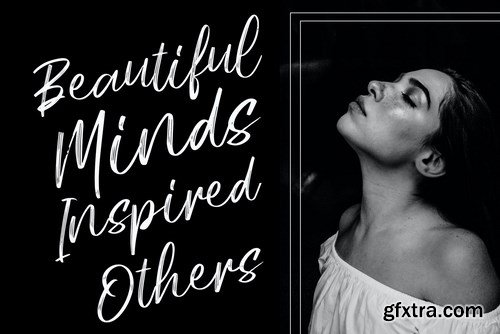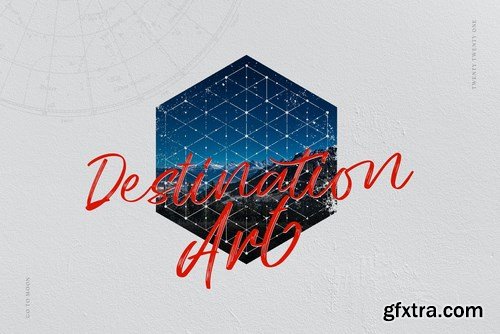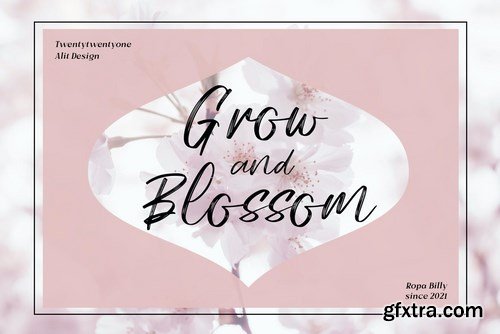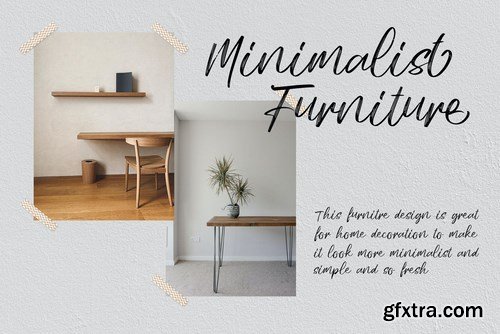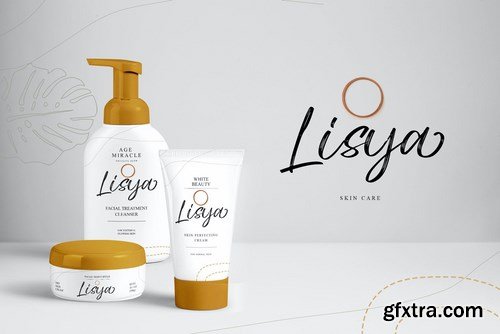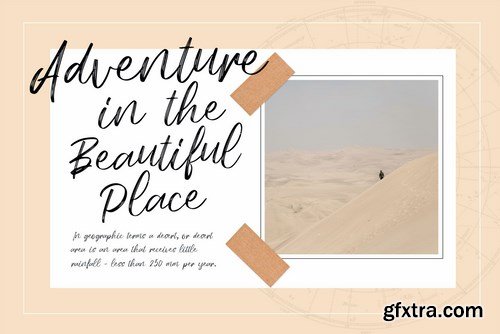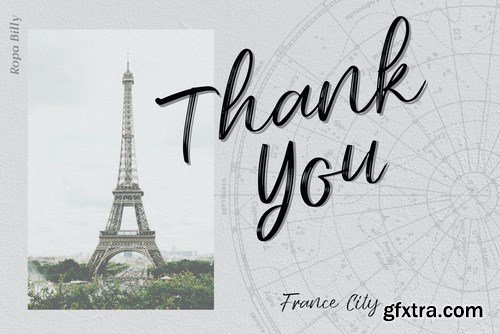
Ropa Billy is a very beautiful and unique Classy Font that comes with a very beautiful ligature surprise with different font characters so it is perfect for your design needs such as printed quotes, invitation cards, social media, product packaging, your website and more!